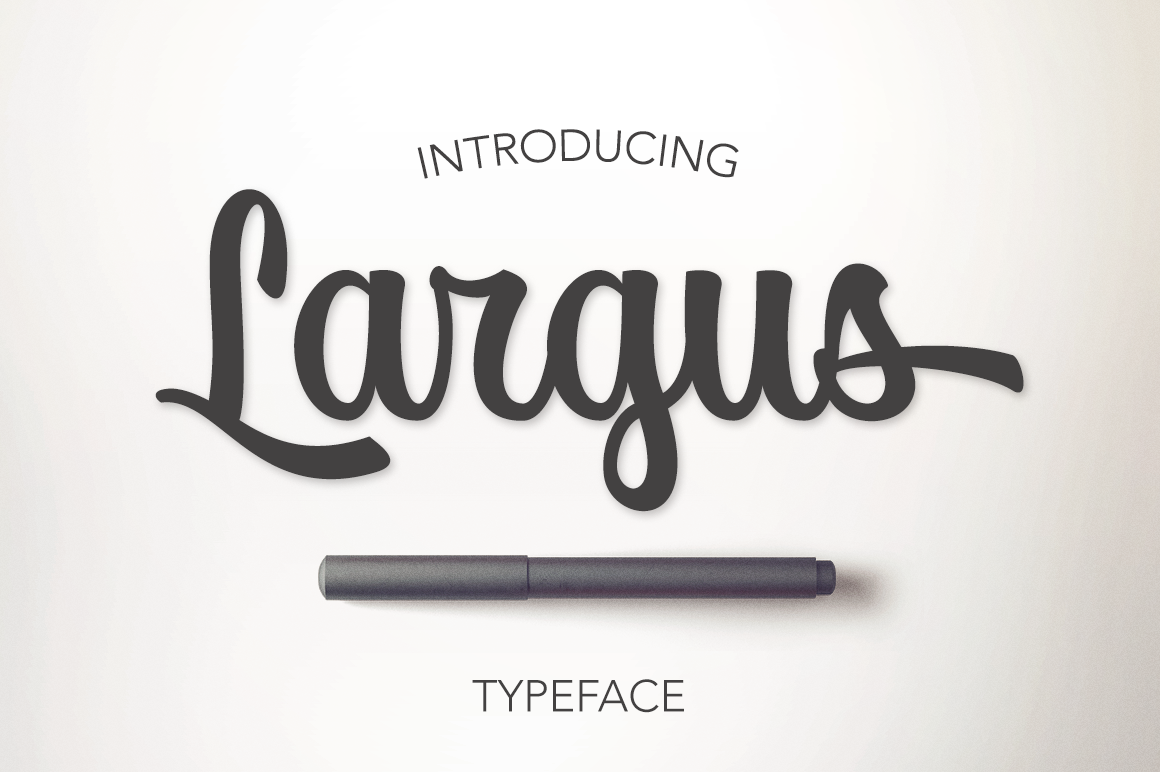
Largus Typeface
Largus Typeface - a new fresh handmade calligraphy font.
This fonts is ideal for branding and decorate your any project. This fonts are perfect for wedding invitation or your blog. Also with their help, you can create a logo or beautiful frame for your home. Or just use for your small business, book covers, stationery, marketing, magazines and more.